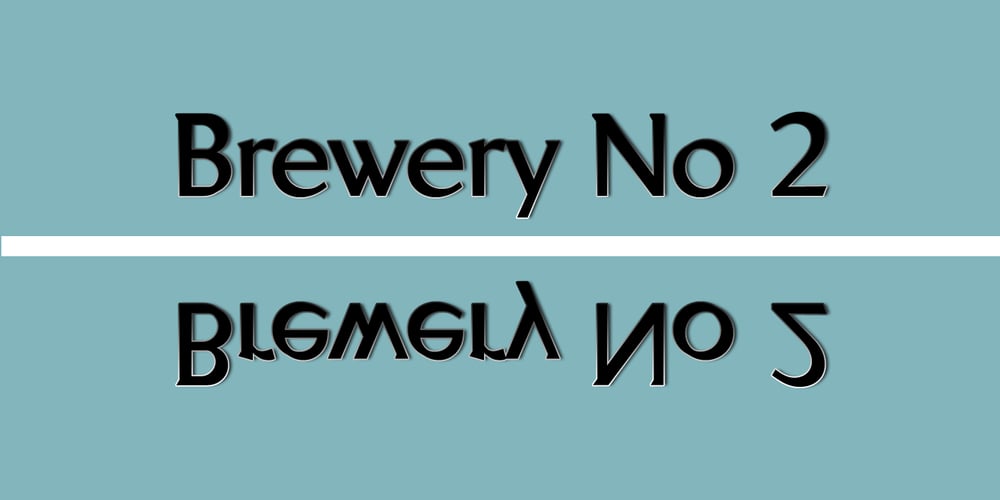
Brewery No 2 Font Family was designed by Gustavs Andrejs Grinbergs and published by Linotype. Brewery No 2 contains 28 styles and family package options. An entry in the Second Linotype Design Contest, Linotype Brewery, designed by Gustavs Andrejs Grinbergs, became part of the TakeType Collection in 1997. Brewery No 2 represents a significantly improved version of its precursor, and the typeface has been both extended and enhanced. When asked about prototypes, Grinbergs cites German typefaces of the early 20th century. It is thus not surprising that the characters of Brewery™ No 2 are based on geometrical forms. However, this is no mere synthetic Grotesque-derived typeface. It has significant contrasts in line thickness and triangular line terminals that are not unlike serifs, placing it in the middle ground somewhere between a Grotesque and serif font. The contrast between the features of a synthetic Grotesque and an Antiqua gives the characters of Brewery No 2 their distinctive charm and is the distinguishing attribute of this contemporary typeface. Additional vibrancy is provided by bevelled line endings (as in the case of the ‘E’ and the ‘F’), the circular punctuation marks and the slight curve of the descending bar of the ‘k’. Thanks to a generous x-height and its open counters, Brewery No 2 is also highly legible in small point sizes. Only in its bolder versions is another aspect of Brewery No 2 apparent; Grinbergs has here made the linking elements more rectangular and has emphasized the counters, so that the Bold variants of Brewery No 2 exhibit elements typical of a broken typeface. Brewery No 2 is available in seven finely graduated weights, ranging from Light to Black. Every variant has a corresponding, slightly narrower Italic version. In addition, the lowercase ‘a’ is given a closed form, the ‘e’ is more rounded and the ‘f’ has a descender. The character sets of Brewery No 2 leave nothing to be desired. In addition to small caps and ligatures, there are various numeral sets with old style and lining figures for setting proportional text and table columns. In its most extensive form (the Pan-European variant), Brewery No 2 can be used to set texts in many languages that employ the Latin alphabet and also texts in international languages that use Cyrillic or monotonic Greek orthography. Although some of the features of Brewery No 2, such as the tiny serifs, are only evident in the larger point sizes, this typeface is not just at home when used to set headlines. Brewery No 2 also cuts a good figure in short or medium length texts. This contemporary typeface with its formally elegant quality looks good, for example, on posters, in newspapers and promotional material. It can also be used for websites as it is also available as a web font.